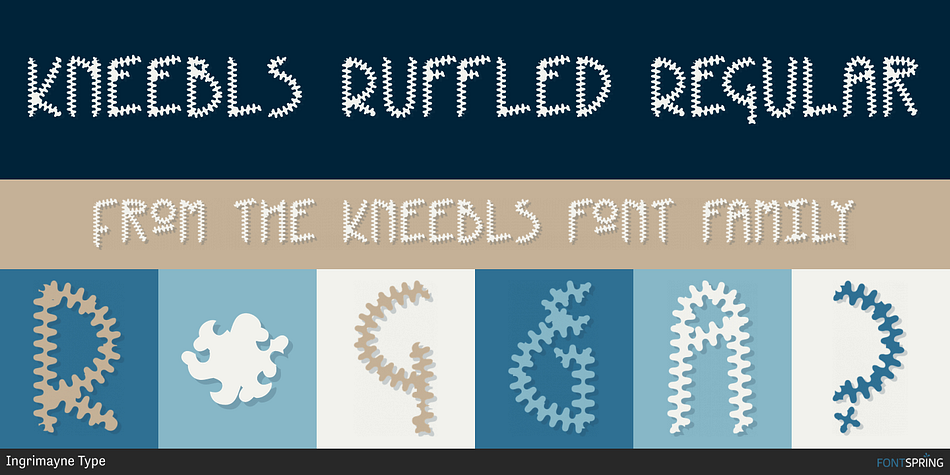
Kneebls Ruffled Regular
Designed by Robert Schenk, Kneebls is a hand display font family. This typeface has six styles and was published by Ingrimayne Type.
Kneebls was inspired by Art Deco lettering. It is monoline and all caps, with most of the letters on the lower-case keys different from those on the upper-case keys. It comes in three weights: thin, regular, and bold. There is also a distorted, wavy version, KneeblsRuffled, and a shadowed version. The shadowed-inside style is designed to be used in a layer with the shadowed style.